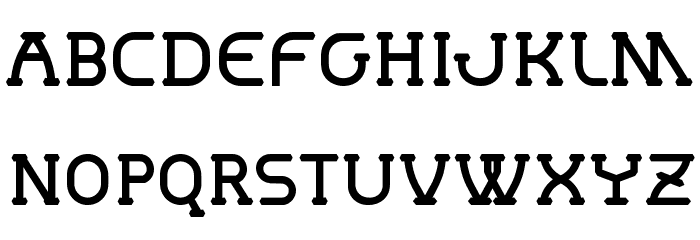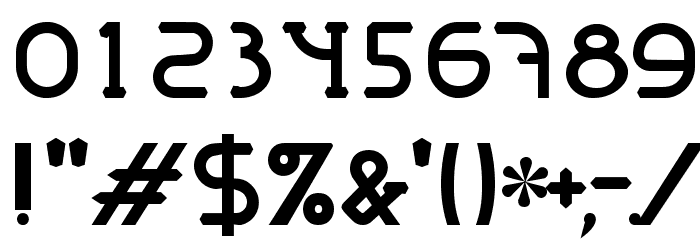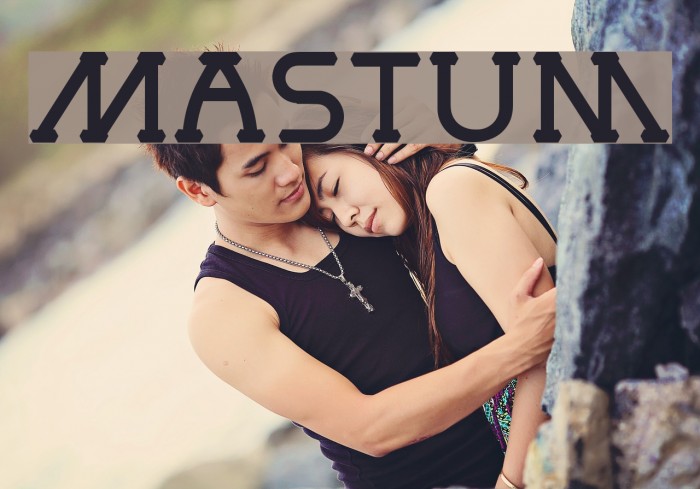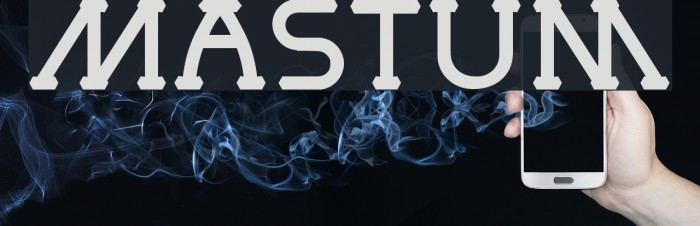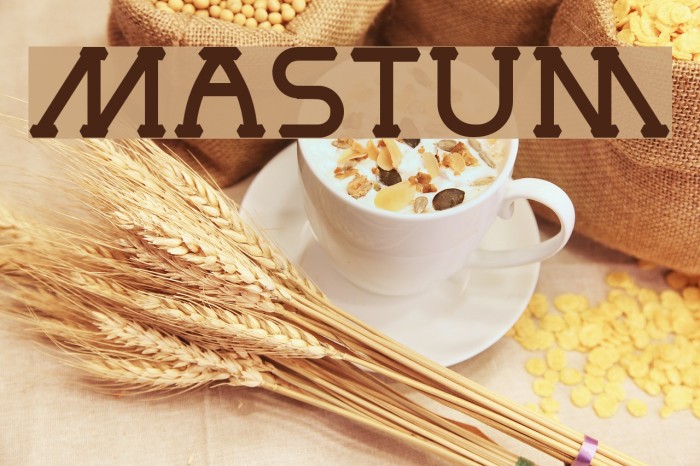
Mastum Font
This font exhibits a unique blend of modern and classic styles, characterized by its bold, geometric shapes and distinctive serifs. The uppercase letters are particularly striking, with a strong presence and slightly condensed form. The lowercase letters maintain a consistent style, offering a harmonious balance between readability and aesthetic appeal. The numerals are bold and clear, making them suitable for various applications. Special characters are well-defined, adding versatility to the font's use. Overall, this font's design is both functional and visually appealing, making it suitable for a wide range of design projects.
A bold, geometric serif font with a modern and classic blend.
- Proposed Projects: Ideal for branding, headlines, posters, and editorial design.